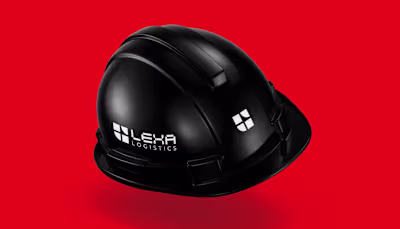
I designed a typeface with
I designed a typeface with two styles BOLD and ITALIC. It’s built to hit first, read fast, and stay remembered. Tight, heavy, unapologetic, made for designers who want their work to feel super BOLD. Suitable for Posters. Streetwear. Sports. Culture. Games. OTBOLD Typeface Family 2 styles (Roman + Italic) 800+ glyphs total Extended Latin & African language support